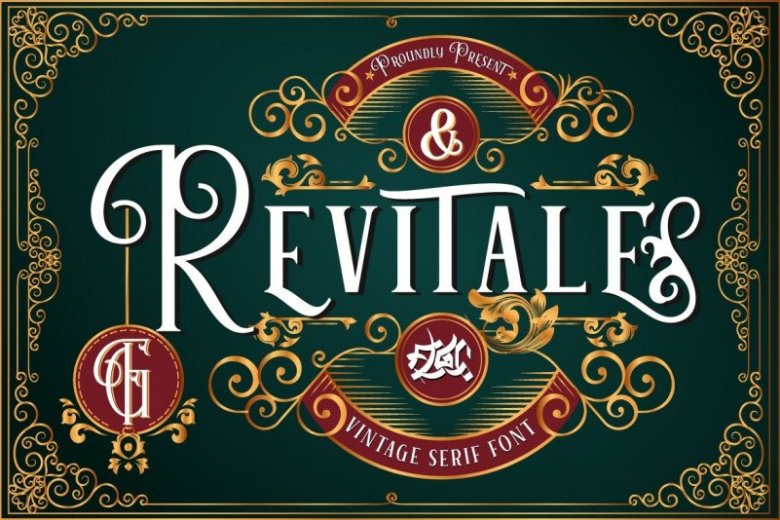
Revitale Font
Revitale Display Font is a font that is inspired by the theme of past kingdoms. Made from font designer named FallenGraphic Studio. Chimpsdale is stands out as a diverse selection of typefaces, beautiful alternates character that maintain a coherent look and feel throughout. font is perfect for branding, headings, signatures, logos, blog, wedding invitations, t-shirts, letterhead, merchandise, signage, lable, news, posters, badges etc.